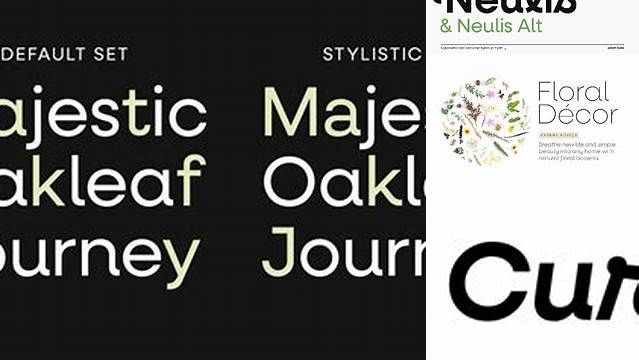
Neulis Font Family Free Download: A Complete Guide
Neulis Font Family: What's the Buzz About?
So, what exactly is the Neulis Font Family, and why should you care? Well, the Neulis Font Family is a versatile and modern font designed with both readability and style in mind. It typically includes a range of weights and styles, from light and elegant to bold and attention-grabbing. This flexibility makes it ideal for a wide variety of uses. You can use it for everything from headings and body text to logos and social media graphics. The overall aesthetic is clean and contemporary, giving your designs a polished and professional look. If you are looking for a font that can do it all, the Neulis Font Family is definitely worth considering. It offers a touch of sophistication without being overly complicated, making it a great choice for both personal and commercial projects. Consider it the Swiss Army knife of fonts – ready for any design challenge you throw its way. Plus, its modern design ensures that your projects will always look up-to-date and stylish. So, if you want to give your design a modern and easy-to-read style, the Neulis Font Family is a great choice.
Moreover, the Neulis Font Family shines in its versatility. Whether you're crafting a website, designing a sleek presentation, or working on branding materials, Neulis adapts seamlessly. Its different weights and styles allow for creative variations, making it easy to emphasize important information or add visual interest to your design. From the delicate strokes of the light version to the commanding presence of the bold, you have the tools to create dynamic and engaging visuals. This adaptability is particularly valuable in today's fast-paced digital landscape, where grabbing attention quickly is key. Furthermore, the Neulis Font Family's legibility is another major plus. Even in smaller sizes, its clean and well-defined letterforms remain clear and easy to read. This is crucial for user experience, ensuring that your audience can effortlessly understand your message. In an era where content is king, choosing a font that enhances readability can significantly impact your project's success. Its clean, modern design gives it the flexibility to fit seamlessly into almost any design style.
Neulis Font Family: Styles and Weights Explained
One of the coolest things about the Neulis Font Family is its variety. It's not just one font; it's a whole family of different styles and weights. Usually, you'll find various weights like Light, Regular, Medium, Bold, and sometimes even Extra Bold or Black. Each weight has a different thickness, allowing you to create visual hierarchy and emphasize certain text elements. Light weights are great for body text or adding a touch of elegance, while bold weights are perfect for headings, subheadings, and anything you want to stand out. The styles can vary as well. You might find italics, which are great for emphasizing words or phrases, or condensed versions for saving space. Depending on the specific font family, you might also have access to different character sets, like uppercase, lowercase, numerals, and special characters. The variety within the Neulis Font Family gives you a lot of flexibility.
Consider how the different weights and styles can complement each other. Using a bold weight for headings and a regular weight for body text can create a clear and visually appealing layout. Experiment with different combinations to see what works best for your project. Understanding the different styles and weights of the Neulis Font Family allows you to create well-structured and engaging designs. So, if you want your designs to stand out, consider using a variety of weights and styles. Make sure to select the appropriate weights and styles based on your specific design requirements. Remember, the key is to create a balanced and visually appealing design. Proper use of styles and weights can significantly enhance the overall look and feel of your designs.
Neulis Font Family in Action: Design Inspiration
Let's get inspired! Where can you actually see the Neulis Font Family in action? Well, because it's a modern and versatile font, you'll find it in a ton of different places. Many designers use it for website headings, body text, and call-to-action buttons. Its clean lines and readability make it a great choice for online content. You might also see it in print materials. It's common in brochures, flyers, and posters, where it can provide a professional and modern look. Logos are another popular application. Its simplicity and adaptability make it ideal for creating memorable brand identities. In social media, you can find the Neulis Font Family used in graphics, posts, and ads. Its clean aesthetic is perfect for grabbing attention in a busy feed.
Tips for Pairing Neulis Font Family with Other Fonts
Okay, so you've got your Neulis Font Family free download, and you're ready to start designing. One of the funnest parts of design is mixing and matching fonts. While Neulis is super versatile, it's even better when paired with another font to create visual interest and hierarchy. Choosing the right font pairing can transform your project, so how do you do it? The goal is to find fonts that complement each other without clashing. There are several ways to achieve this. One common approach is to pair a sans-serif font like Neulis with a serif font. Serif fonts have those little strokes or